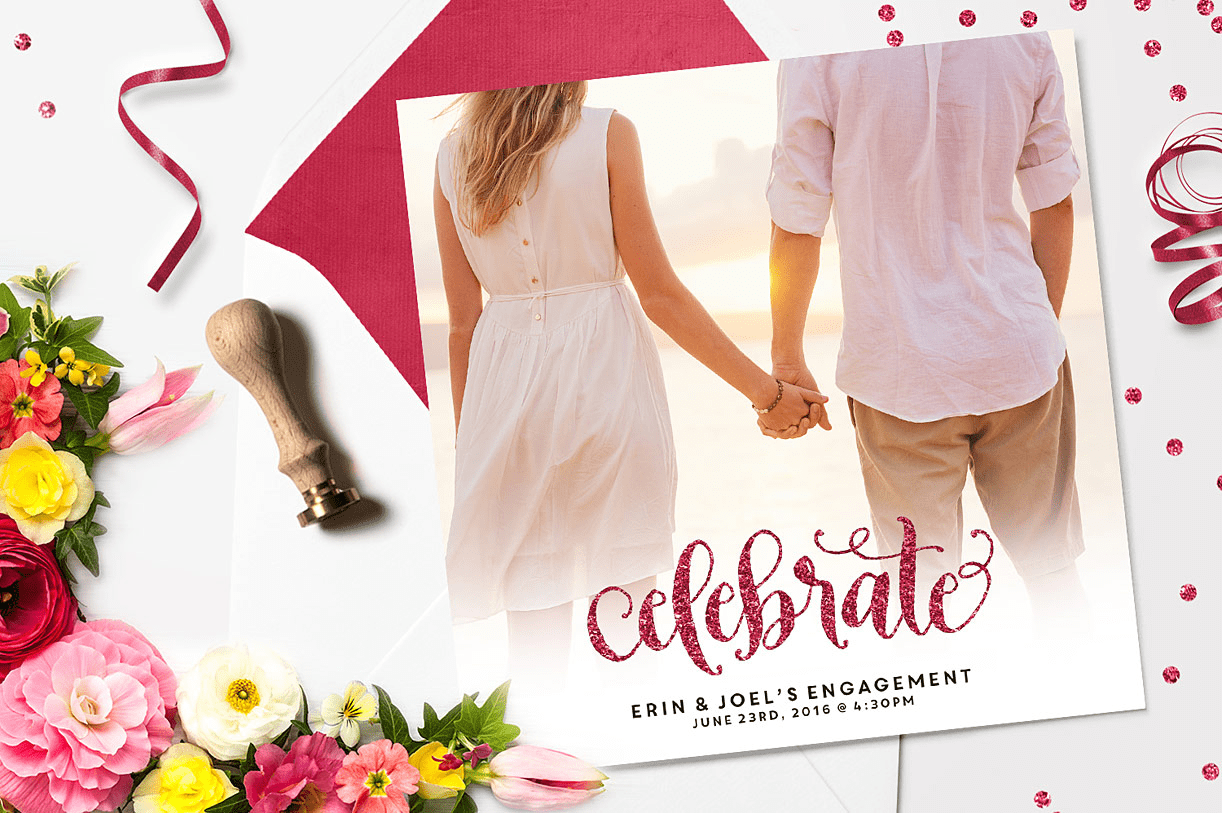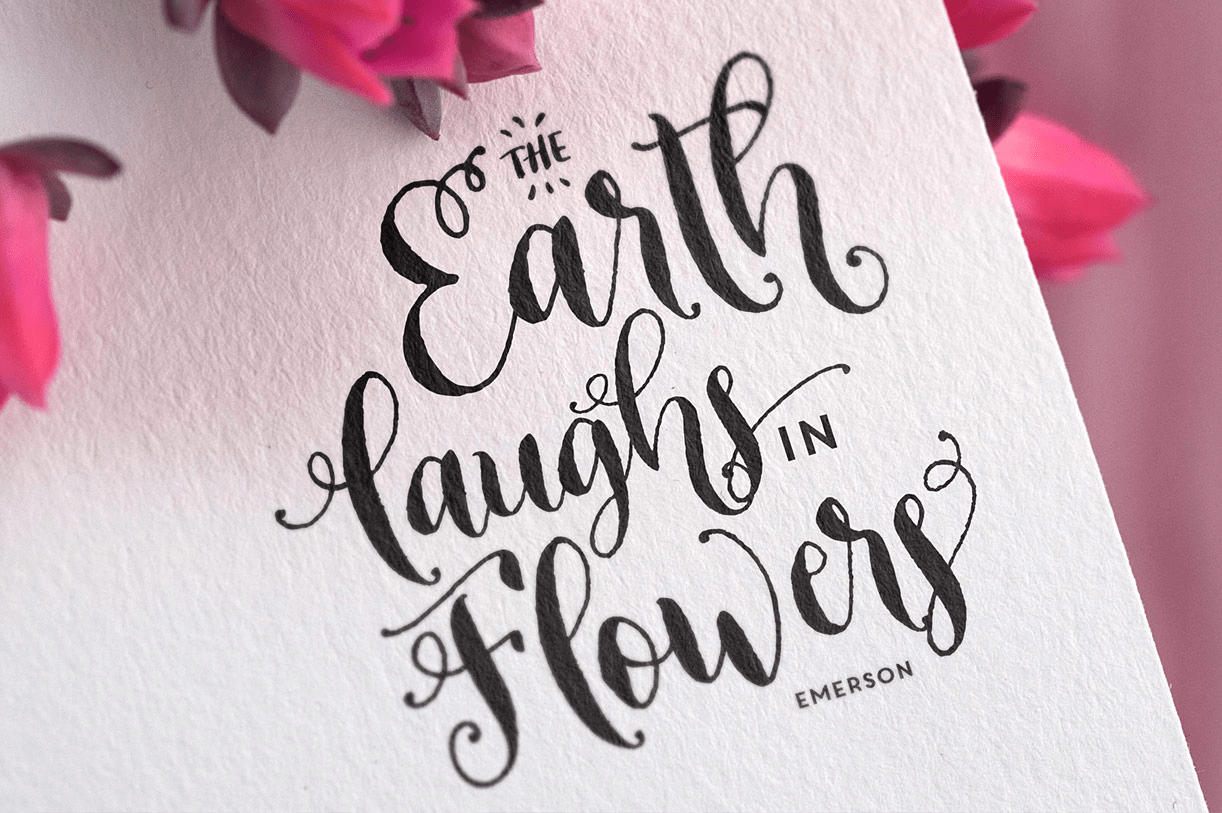
About Cheers
Meet Cheers! A bouncy, fun modern calligraphy font with TONS of celebration catchwords, alternates and a sweet graphic bonus! Cheers was designed with celebrations in mind, so I\’ve done the heavy-lifting for you with 40 ready-made party catchwords, and…